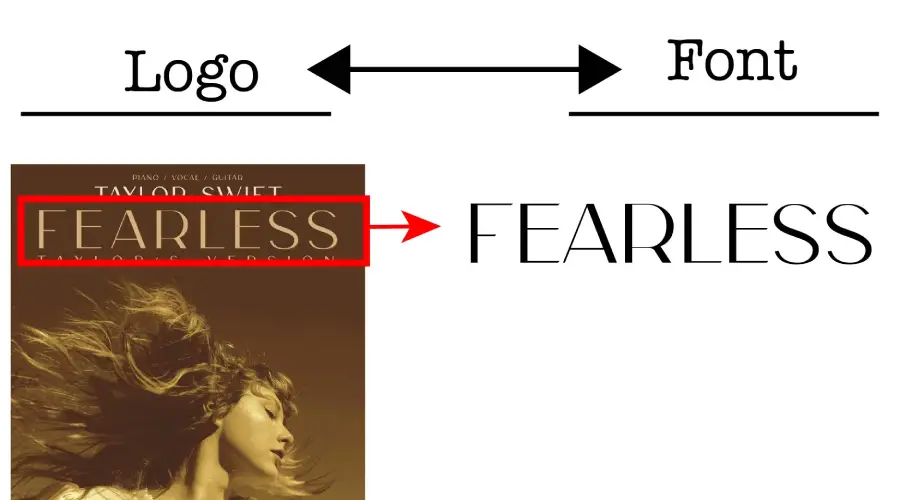
Fearless (Taylor’s Version)” font that originated from Taylor Swift’s re-recorded album “Fearless (Taylor’s Version).” The font used on the album cover is Carla Sans Light, a typeface designed and published by Creative Corner. Interestingly, this font is also employed on other Taylor Swift albums, such as “Speak Now Taylor’s Version.”
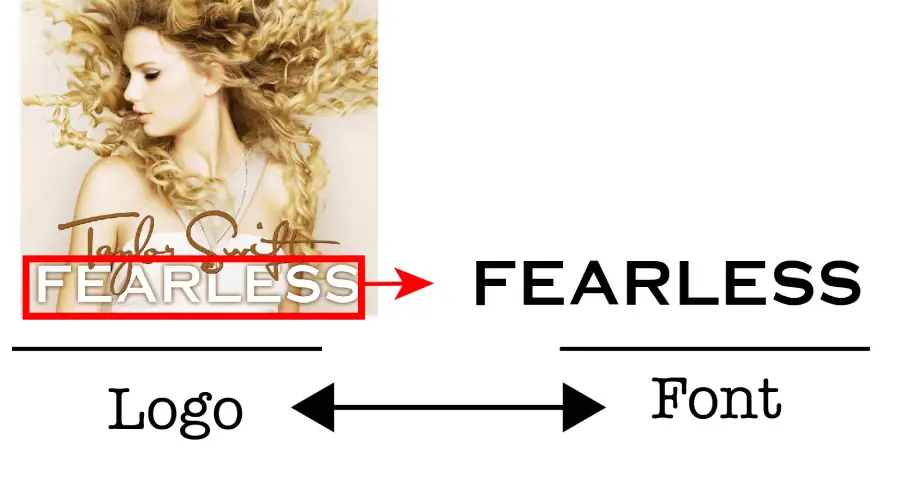
What fonts did Taylor Swift use for her 2008 Fearless album cover? She used Media Gothic and Satisfaction font! She used Media Gothic font for the album cover title while Satisfaction was used for her name “Taylor Swift” on the cover.
The “Fearless” album cover font is distinct and recognizable. The bold and elegant typography used for “Fearless (Taylor’s Version)” captures the essence of Taylor Swift’s music and the emotional depth of her lyrics. The font choice enhances the album cover’s visual impact, making it instantly recognizable and captivating to fans and new listeners alike.
In conclusion, the font used for the Fearless Taylor’s Version font used on the album cover is similar to Carla Sans Light, which contributes to the overall aesthetic and storytelling of the album. Its bold and elegant style captures Taylor Swift’s music, creating a visual experience that resonates with listeners.